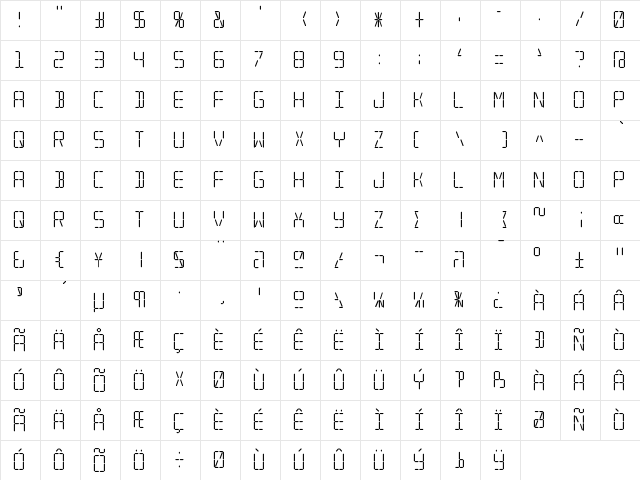
Transponder AOE Regular Free Font
Transponder AOE Regular
Design Context for Transponder AOE
Transponder AOE is a composed and adaptable typeface that performs quietly and consistently across a wide range of design contexts.